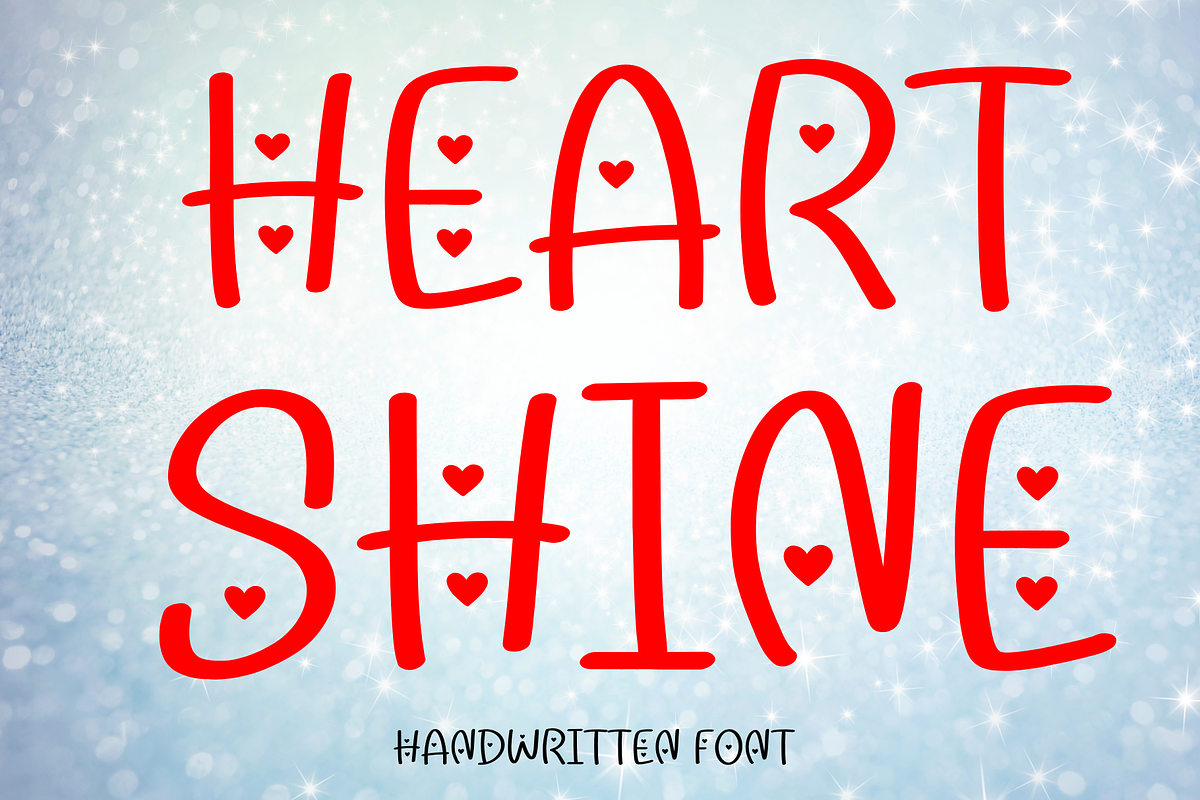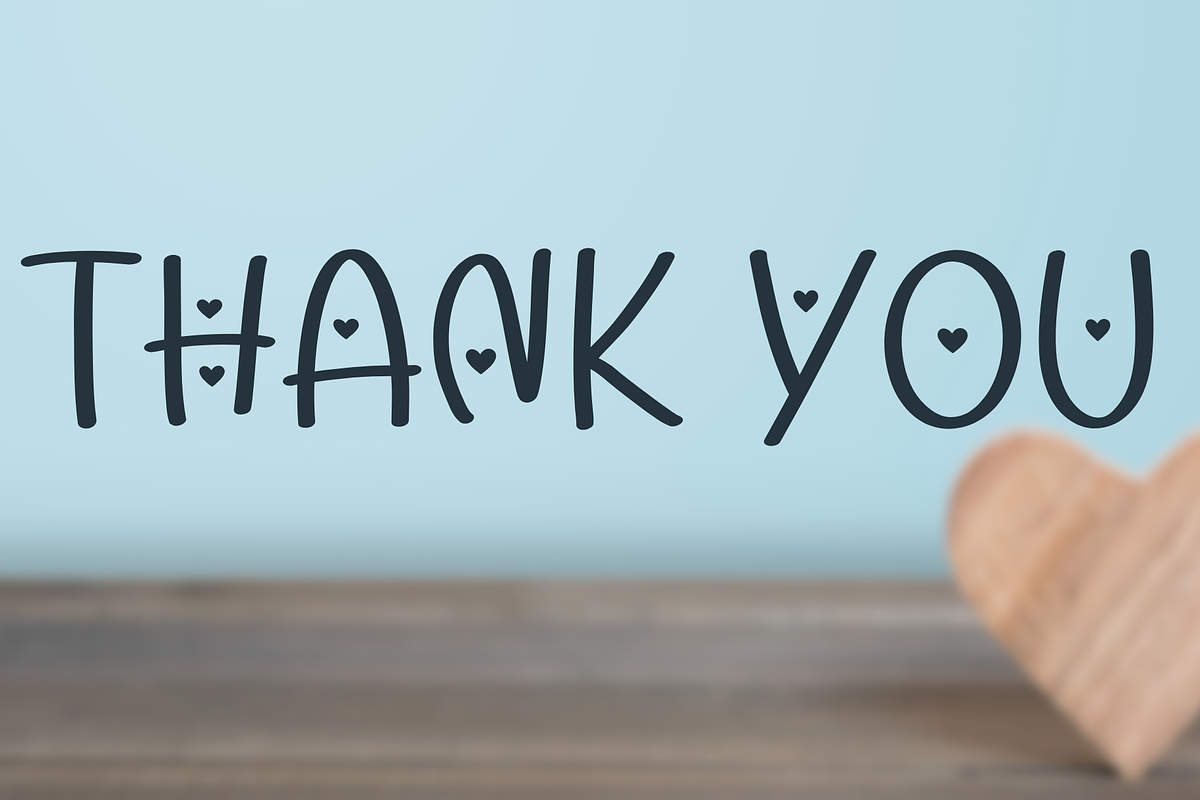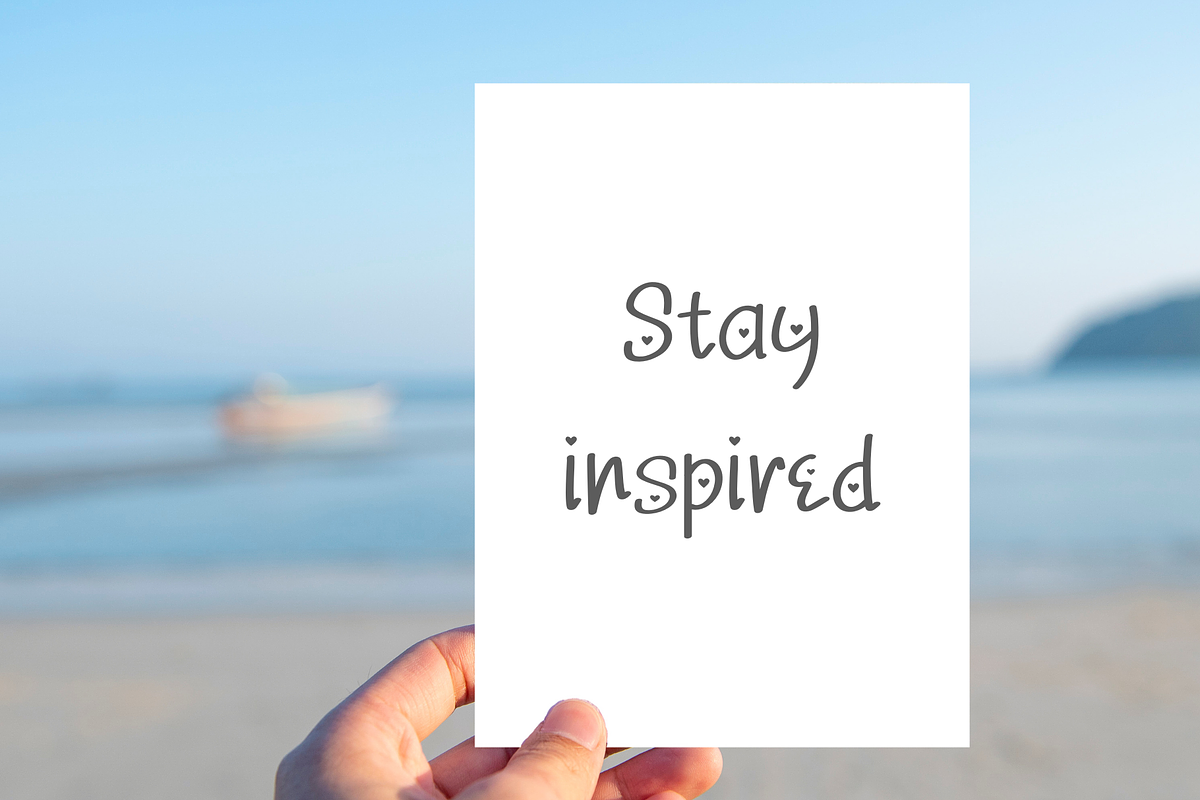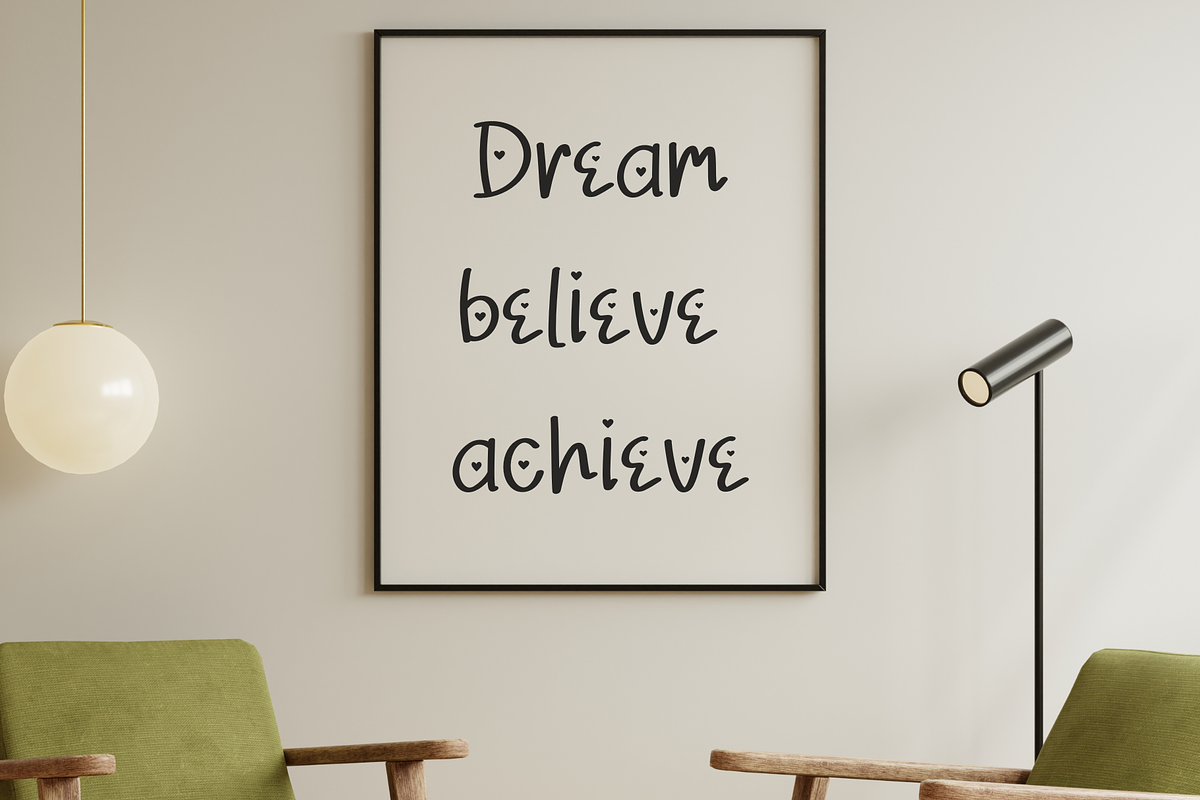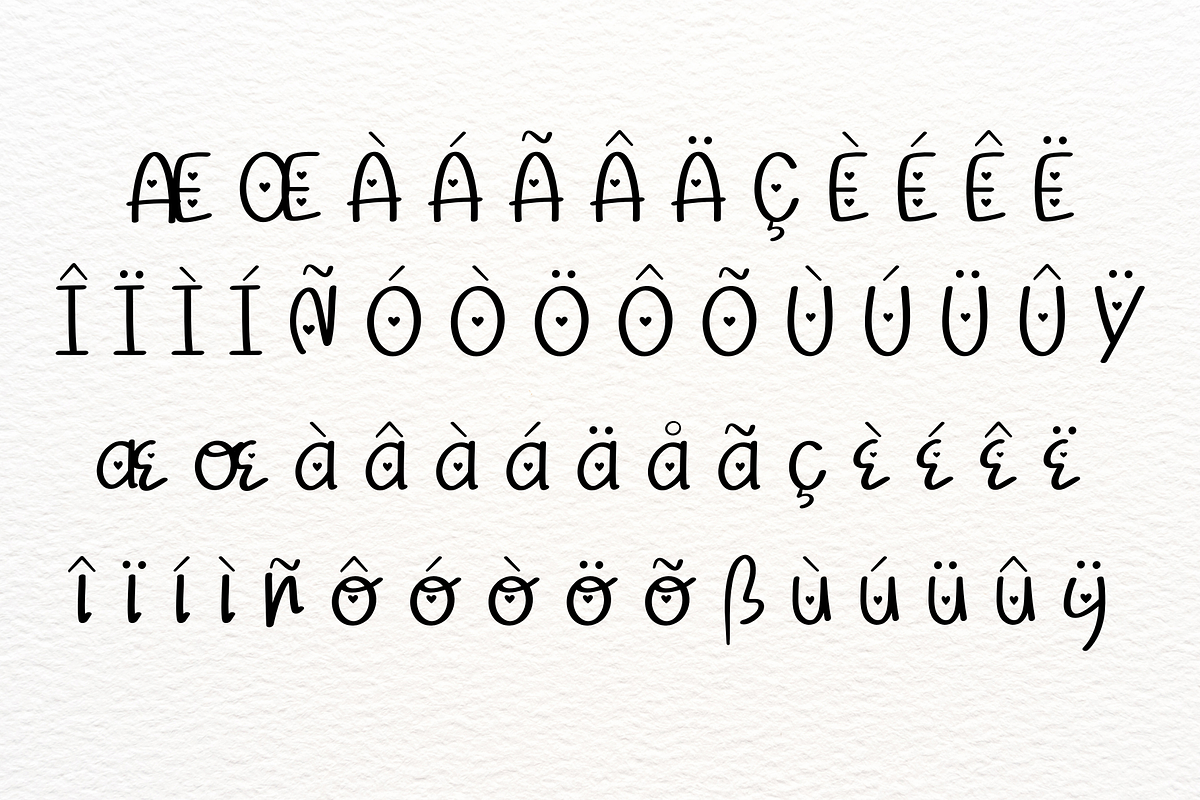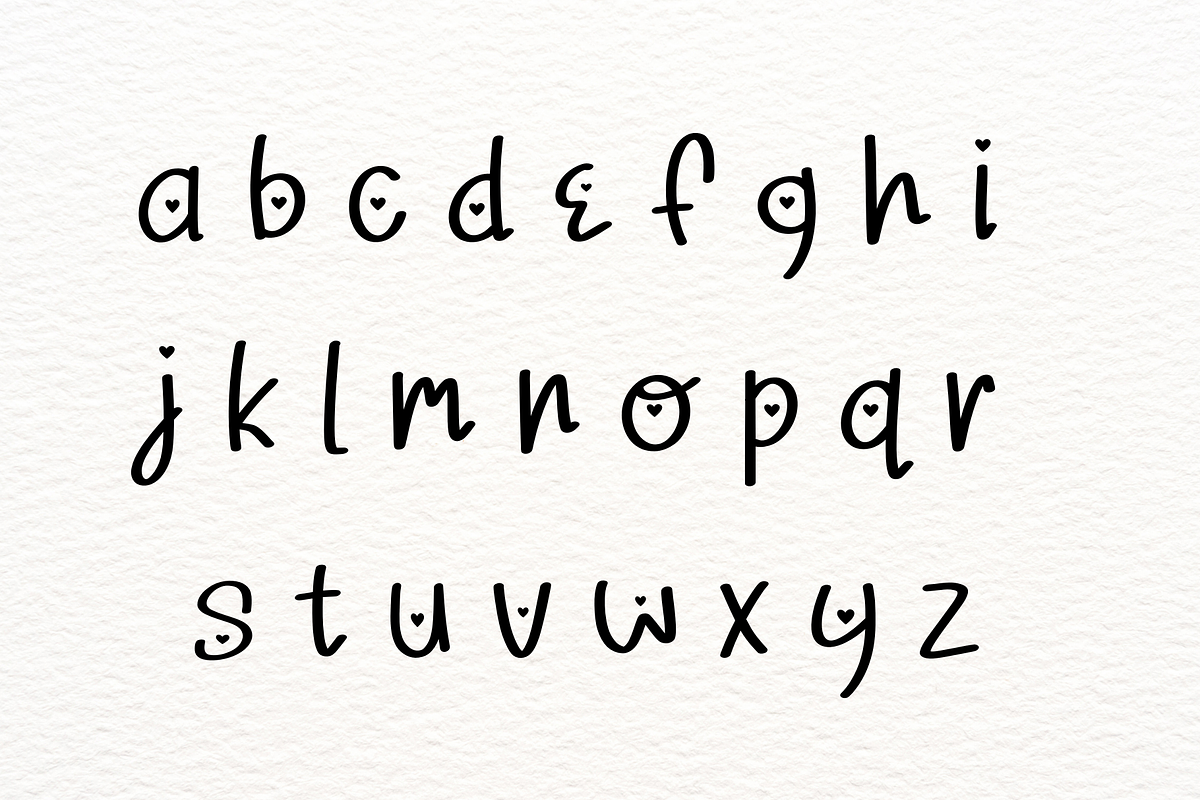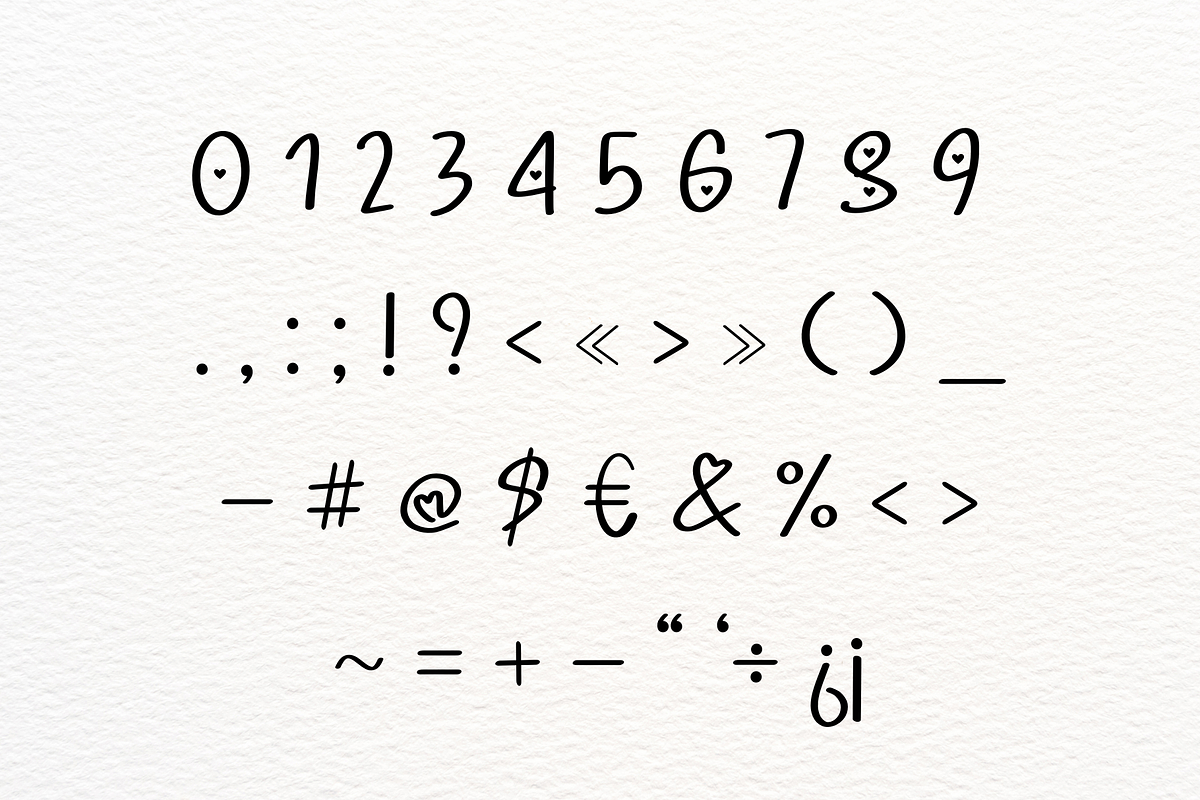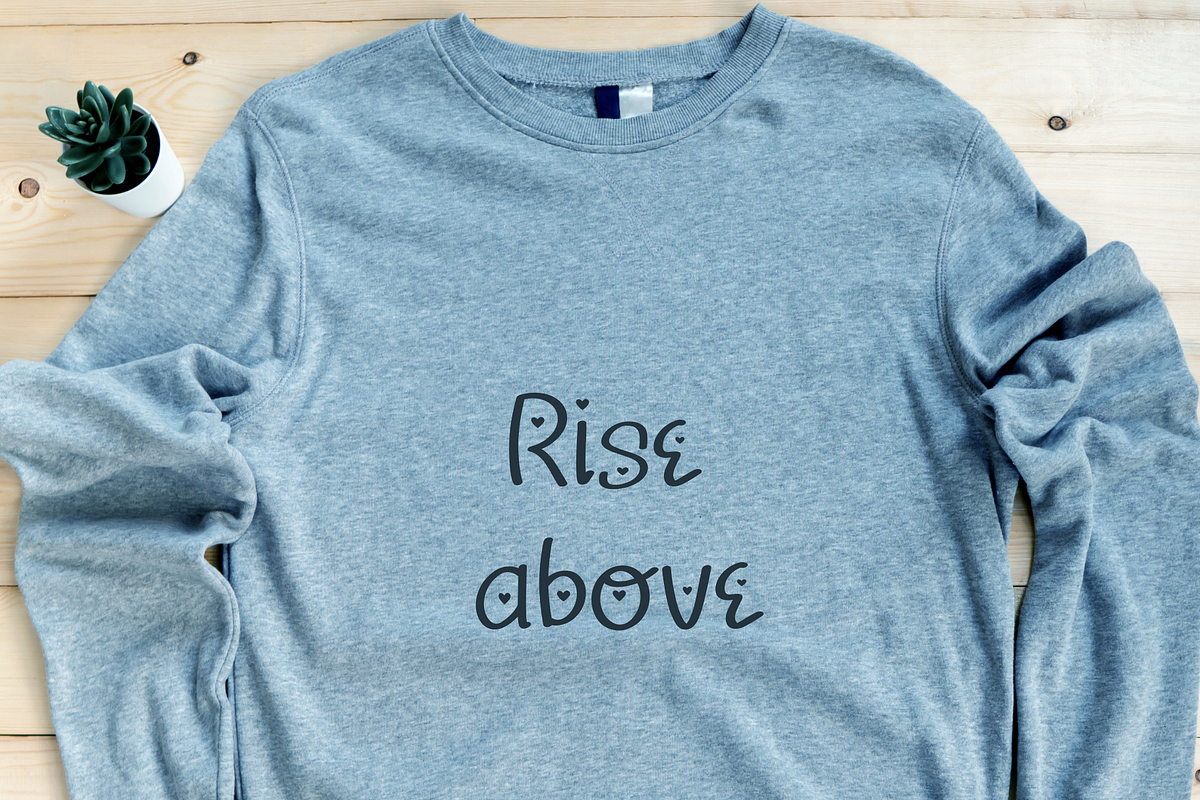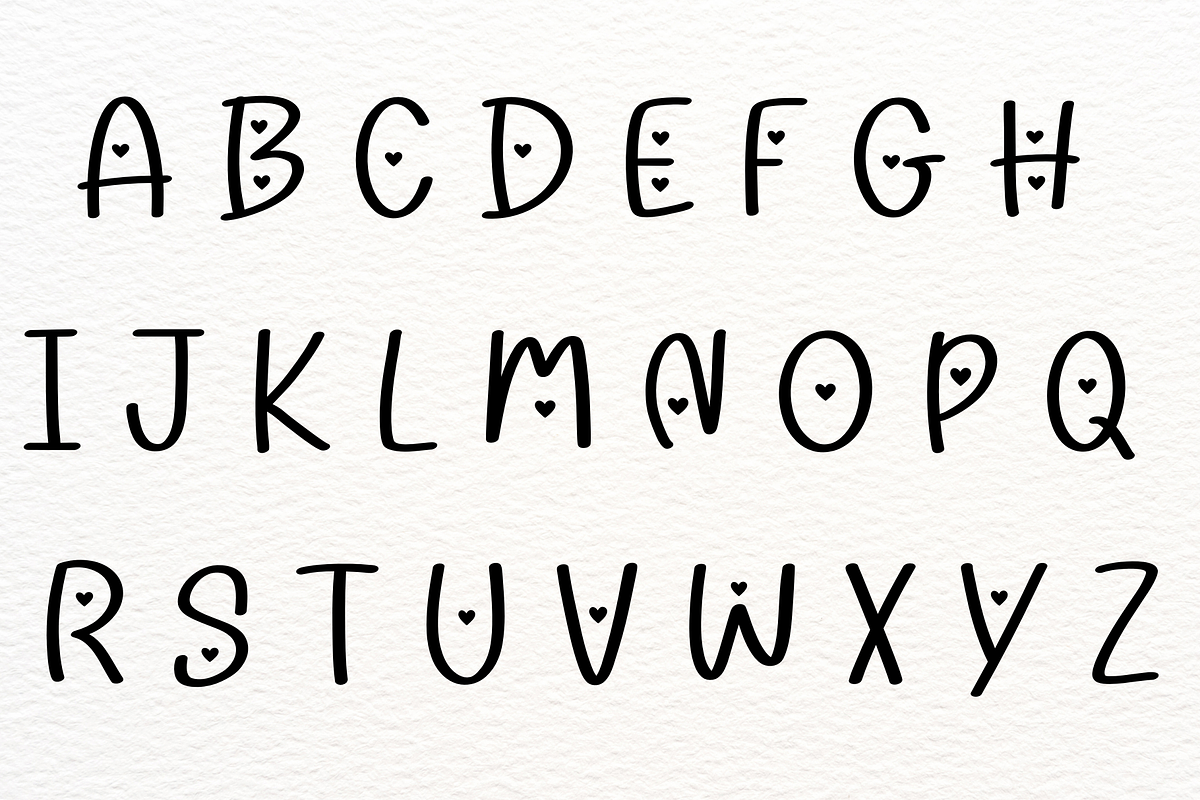
Heart shine
Heart Shine is a cheerful and romantic handwritten font filled with charm and playfulness. Featuring adorable heart details embedded within the letters, this font is perfect for spreading love and joy through your designs. Use it for Valentine’s Day cards, love-themed projects, party invitations, posters, social media graphics, and more! Heart Shine is a unique way to express creativity and affection in every project.